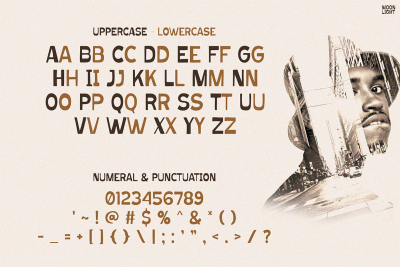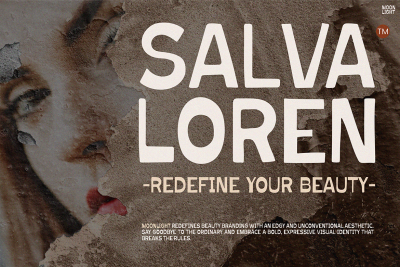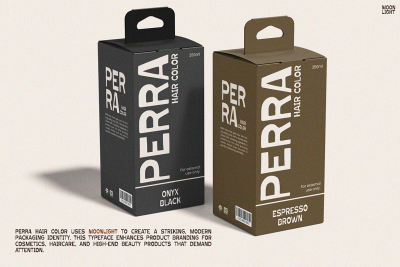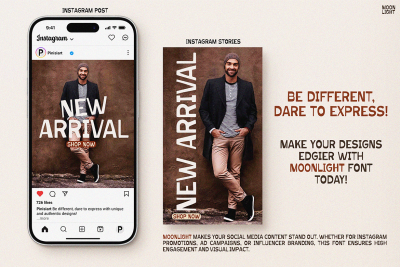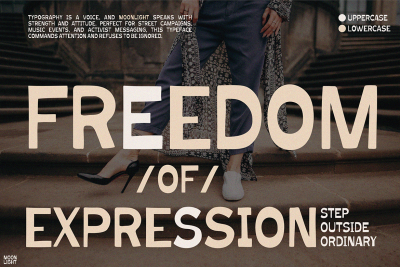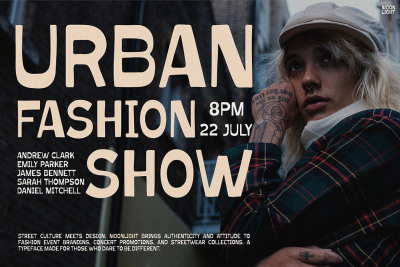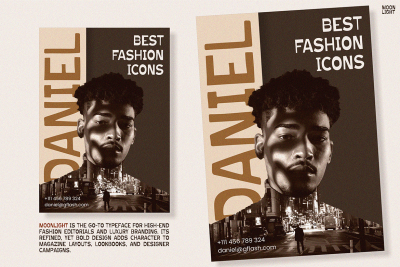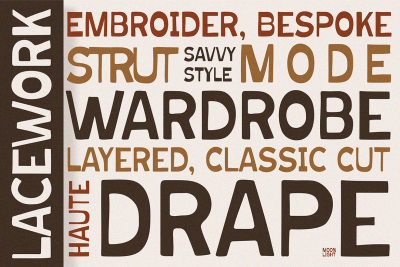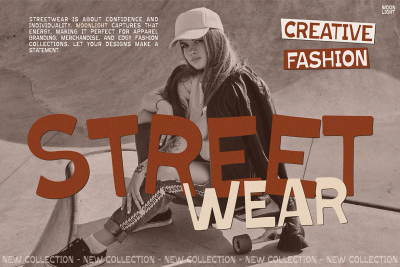
Instagram Font MOONLIGHT is a typeface that perfectly captures the essence of urban culture and high-end fashion aesthetics. With its handcrafted, slightly irregular letterforms, this font exudes an organic yet sophisticated appeal, making it perfect for contemporary branding. Moreover, its bold strokes and natural imperfections add character, giving it an authentic and unique charm.
Designed with versatility in mind, MOONLIGHT strikes the perfect balance between modern elegance and street-style grit. In addition, its carefully curated typography blends artistic expression with readability, making it ideal for event promotions, fashion editorials, and branding that aims to stand out. Whether you’re crafting posters, digital campaigns, or product packaging, this font ensures a dynamic and impactful visual presence. Therefore, it is a great choice for those who want to make a lasting impression.
Who Is This Instagram Font MOONLIGHT For?
MOONLIGHT is tailored for creative professionals, fashion designers, and branding experts who seek to infuse their projects with a distinct personality. Furthermore, social media influencers, especially those focusing on fashion, music, or streetwear culture, will find this font perfect for enhancing their Instagram aesthetics and promotional materials.
Additionally, event organizers, concert promoters, and lifestyle brands can leverage MOONLIGHTโs bold structure to create striking visuals that demand attention. Not only does it work well for digital designs, but it also enhances print materials such as magazine layouts, lookbooks, or luxury campaigns. As a result, graphic designers looking for a statement-making font will appreciate its modern yet edgy appeal.
Why You Need MOONLIGHT
If you’re searching for a typeface that merges authenticity with high-end aesthetics, Instagram Font MOONLIGHT is your perfect match. Its handcrafted style brings warmth and originality to any design, ensuring your projects never feel generic. Moreover, its dynamic presence helps your brand stand out in a crowded market.